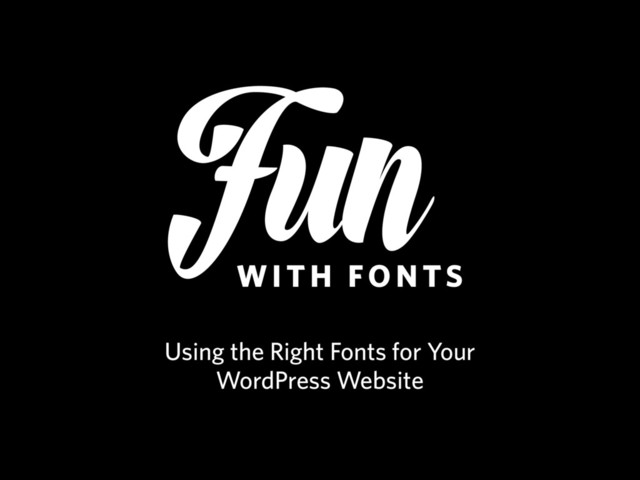
Fun with Fonts: Using The Right Fonts For Your WordPress Website
Readability is an important part to any website. Choosing the right font can make all the difference in any design. Discover where you can get web fonts (free, subscription, or download and install yourself). Learn how to select the right fonts, size your fonts correctly, and add them to your WordPress website without slowing it down.
1. Choosing the Right Fonts Know your context • What are
you trying to convey? • Is it long-form reading or short bursts of text? • Use word association: powerful, playful, innocent, handmade, industrial, etc. • Is it appropriate?
2. Pairing Fonts • Look for distinction • Look for harmony
• Some fonts have a sans and serif
(Freight Sans Pro & Freight Text Pro) • Look at other websites for good
font pairings • Do you need more than one font?
3. Setting Your Type • Type Size
(16px for mobile, 18-22px
for desktop) • Line-width
(45-75 characters wide) • Line-height
(for reading comfort) • Type color & contrast
(for readability and accessibility)
4. Setting Your Type Hamburge
Hamburge Hamburge
6. Loading Fonts @font-face {
font-family: Elena, serif;
src: url(elena-regular.woff2) format(“woff2”),
url(elena-regular.woff) format(“woff”),
url(elena-regular.otf) format(“opentype”);
font-weight: normal;
} Loading fonts from your server in CSS
7. Using Fonts in CSS h1 {
font-family: Whitney, Georgia, serif;
font-size: 72px;
font-weight: bold;
letter-spacing: 0.08em;
text-transform: uppercase;
} HAMBURGE Result: